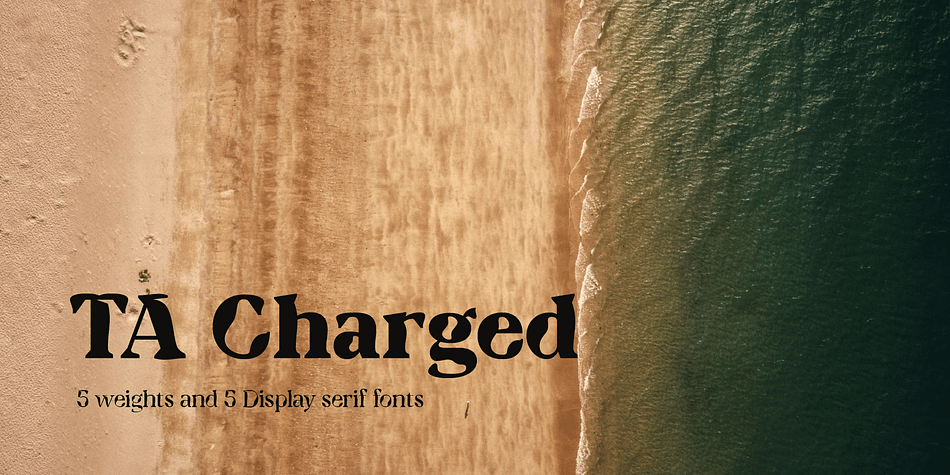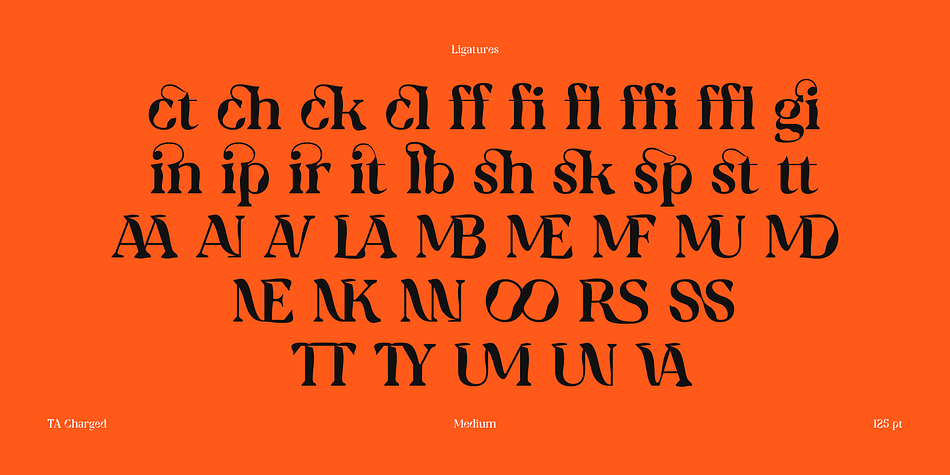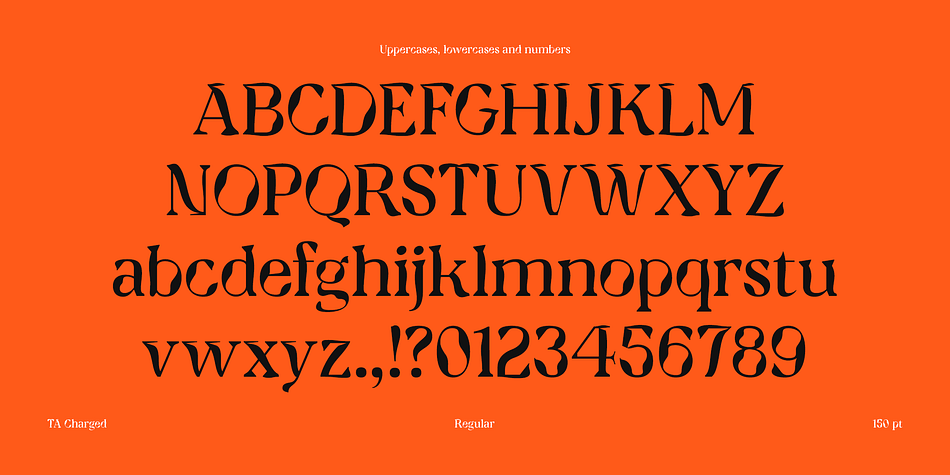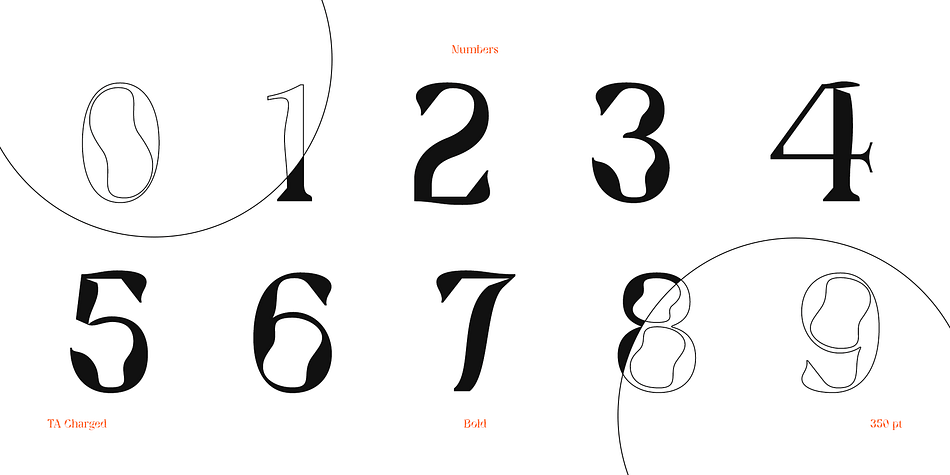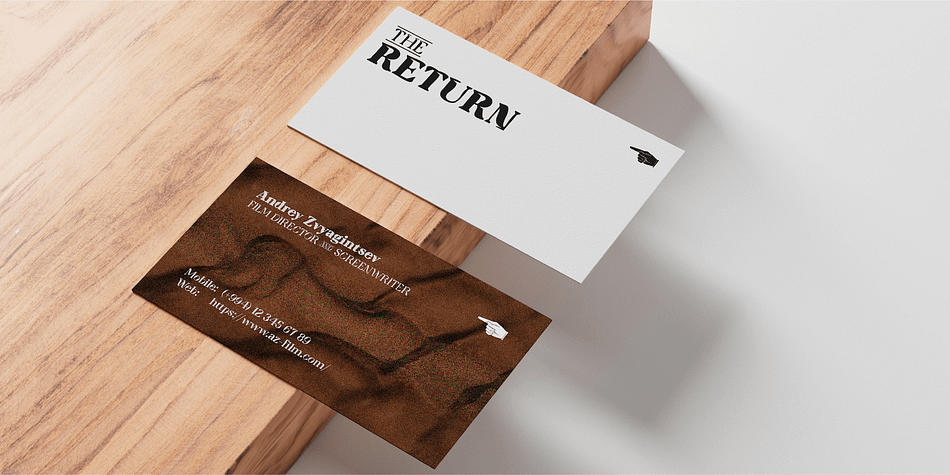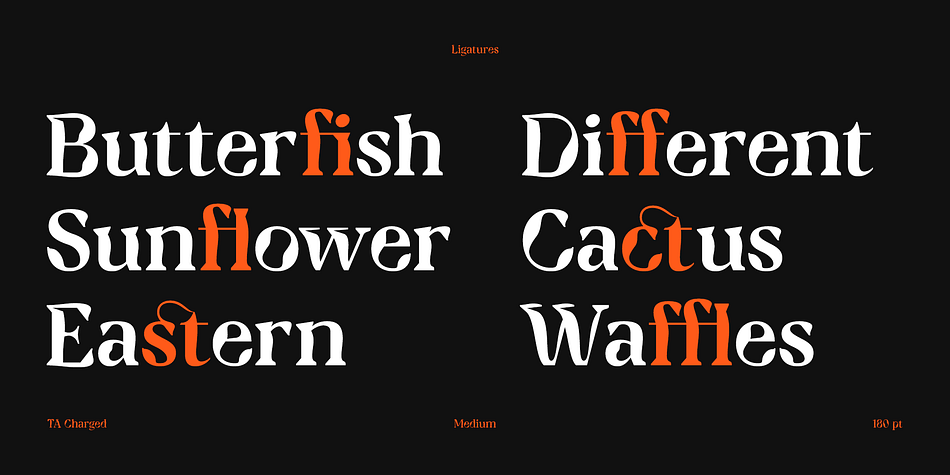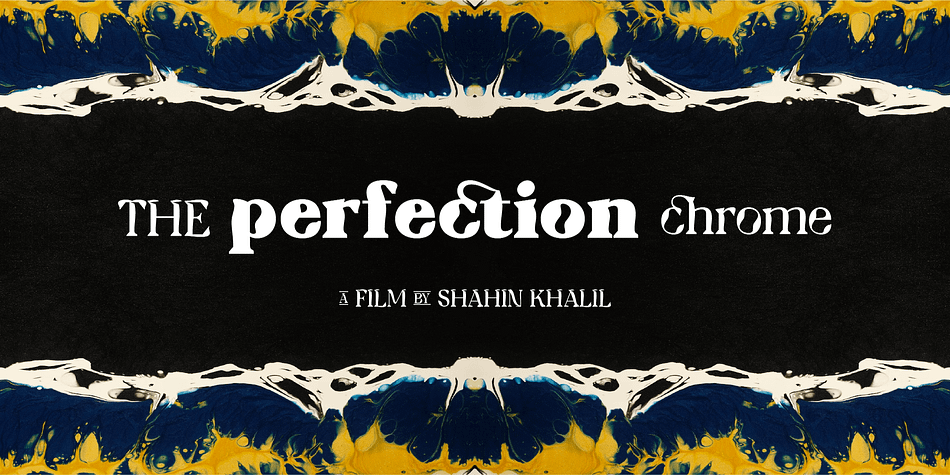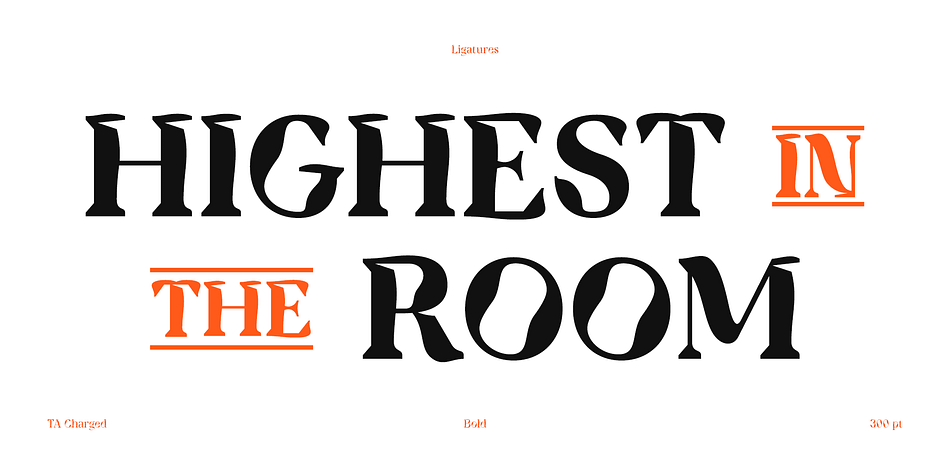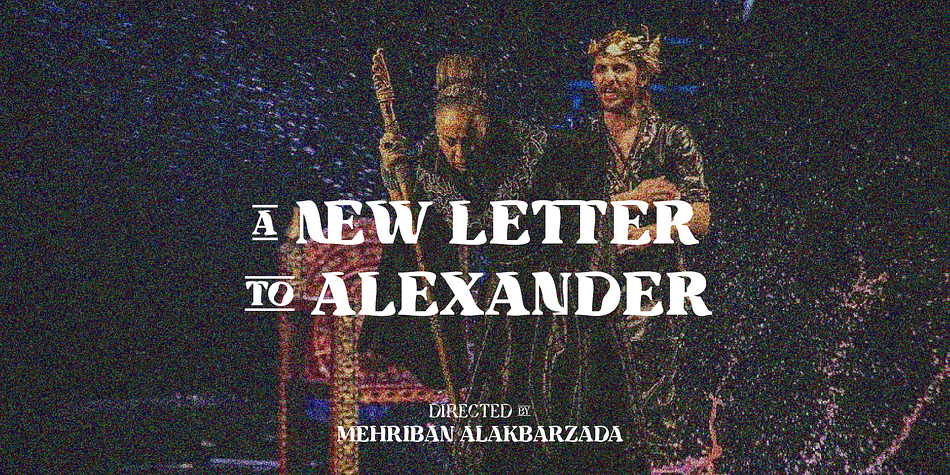
TA Charged
TA Charged is a display serif and serif font family. This typeface has five styles and was published by TAFT Foundry.
Consisting of 5 fonts in 5 weights, it features an extended charset of over 520 glyphs, covering multilingual support, including Western European, Central European, and Southeastern European. Complete with advanced open type features like stylistic alternates, discretionary ligatures, ordinals, small caps, fractions, and case-sensitive forms.
The elegant and refined details seen in this font provide a new aesthetic input, satisfy contemporary style, and give a range of choices for luxury typographic projects. This font is perfectly suited for high-impact headlines. Advance open-type features are stunning on logos, branding, magazines, website, etc.